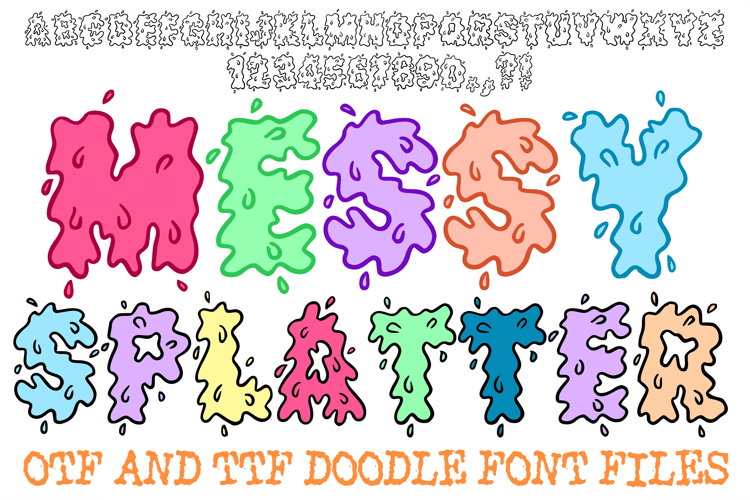
The Messy Splatter Doodle Font is an energetic and organic display typeface that captures the fluid motion of splashing liquid. Each character is hand-drawn to resemble a fresh splat, complete with irregular dripping edges and scattered droplets that give the alphabet a high-texture, "wet" appearance. It is the perfect choice for slime-themed birthday invitations, "oops" inspired stickers, playful children's apparel, and any creative project that needs a touch of chaotic, hand-crafted charm.
Detailed Liquid Texture: Every letter and number is adorned with small, flying droplets and dripping silhouettes for an authentic splash effect.
Bold Bubbly Outlines: The thick, rounded character forms ensure your headlines remain highly readable even with the messy, liquid details.
Hand-Drawn Authenticity: The slightly irregular shapes provide a genuine, non-digital feel that adds personality to digital and physical crafts.